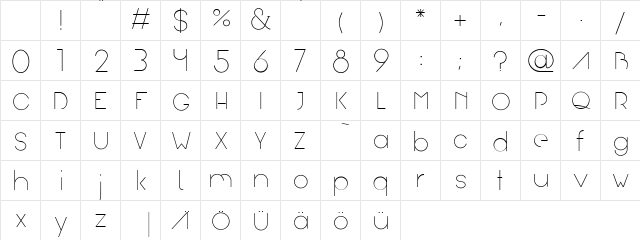
Arual is a composed and adaptable typeface that performs quietly and consistently across a wide range of design contexts. Its slender proportions lend an understated elegance to any composition.